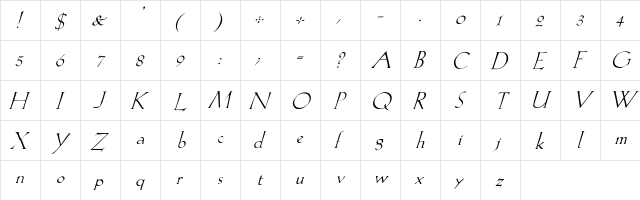
Spaden-Italic Regular
Design Context for Spaden-Italic Typeface
Spaden-Italic is a composed and adaptable typeface that performs quietly and consistently across a wide range of design contexts. The dynamic lean of this cut emphasises speed and emphasis in any layout.
Pro Tip: Use Spaden-Italic for emphasis, pull quotes, and subheadings where its slanted energy can add rhythm to the layout.